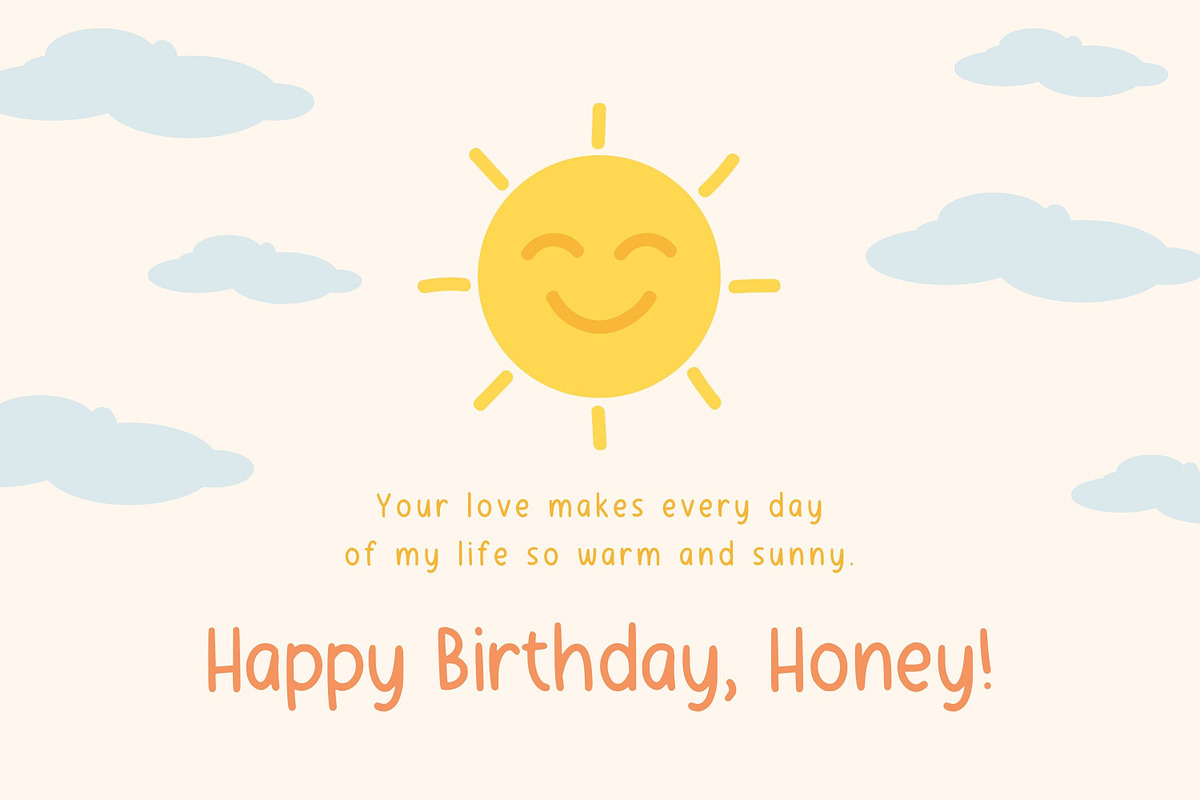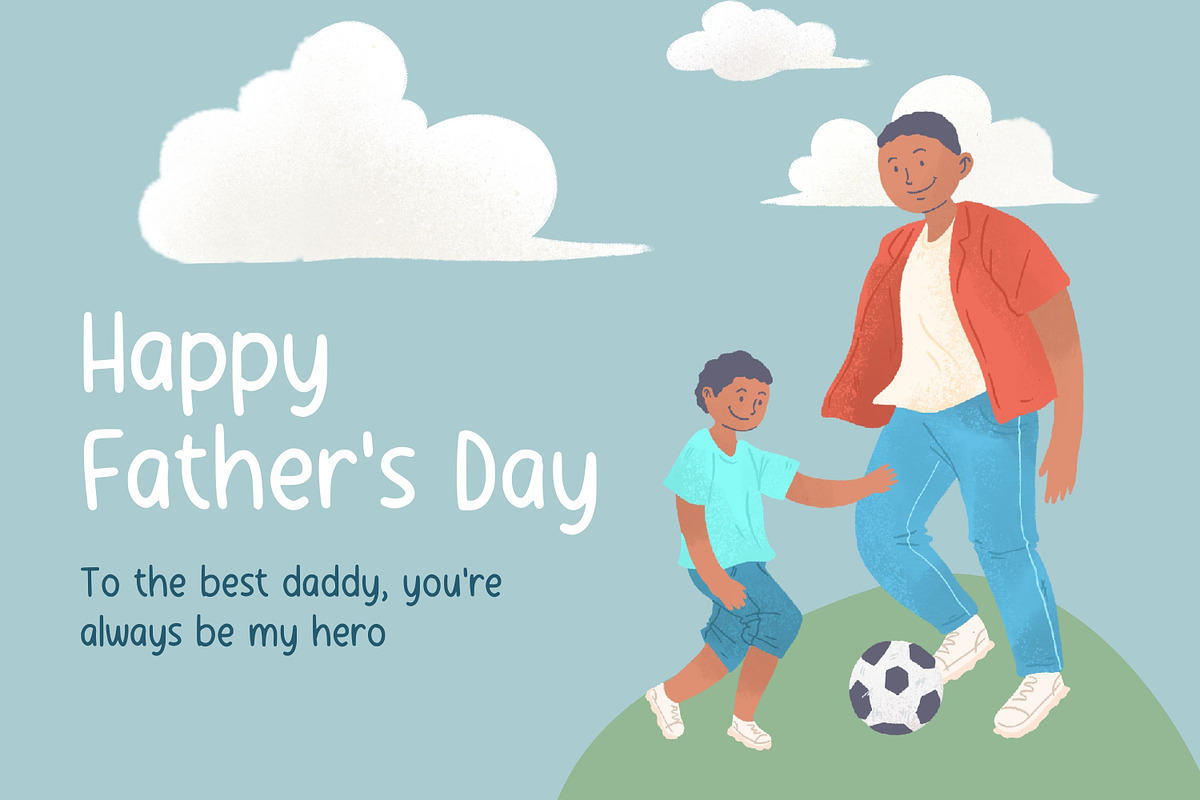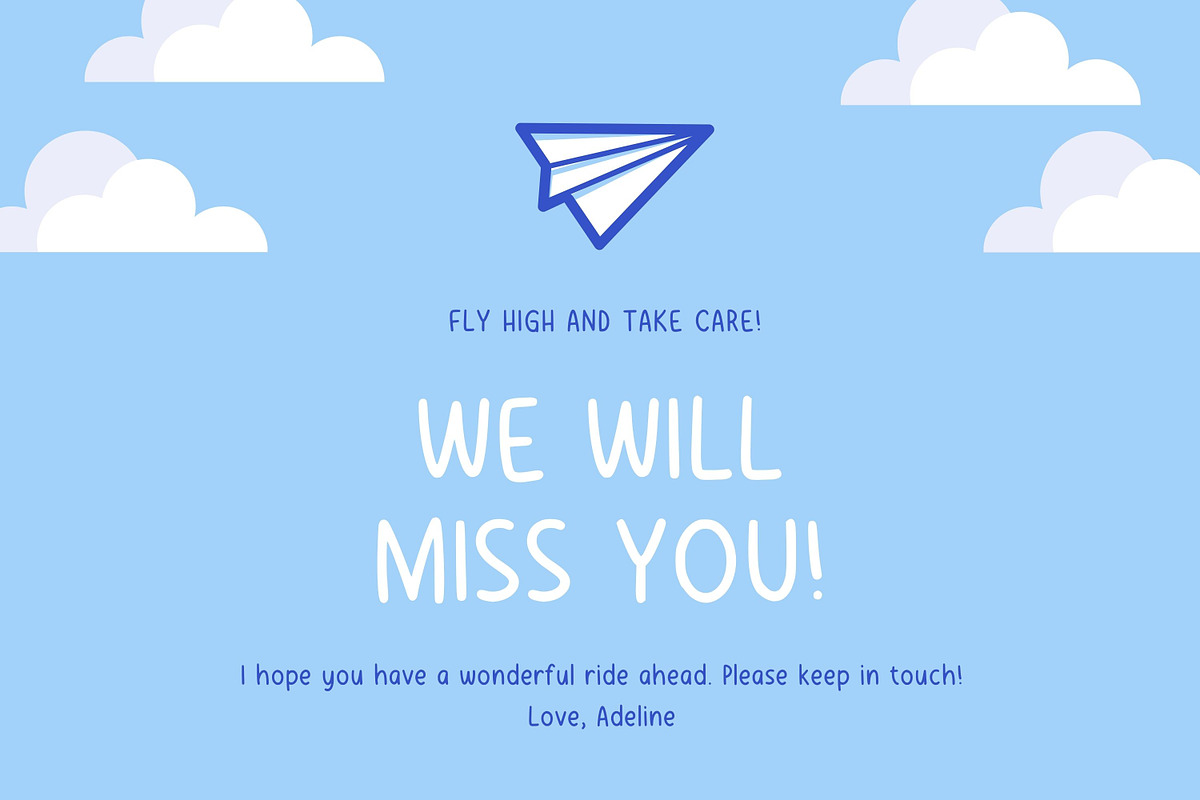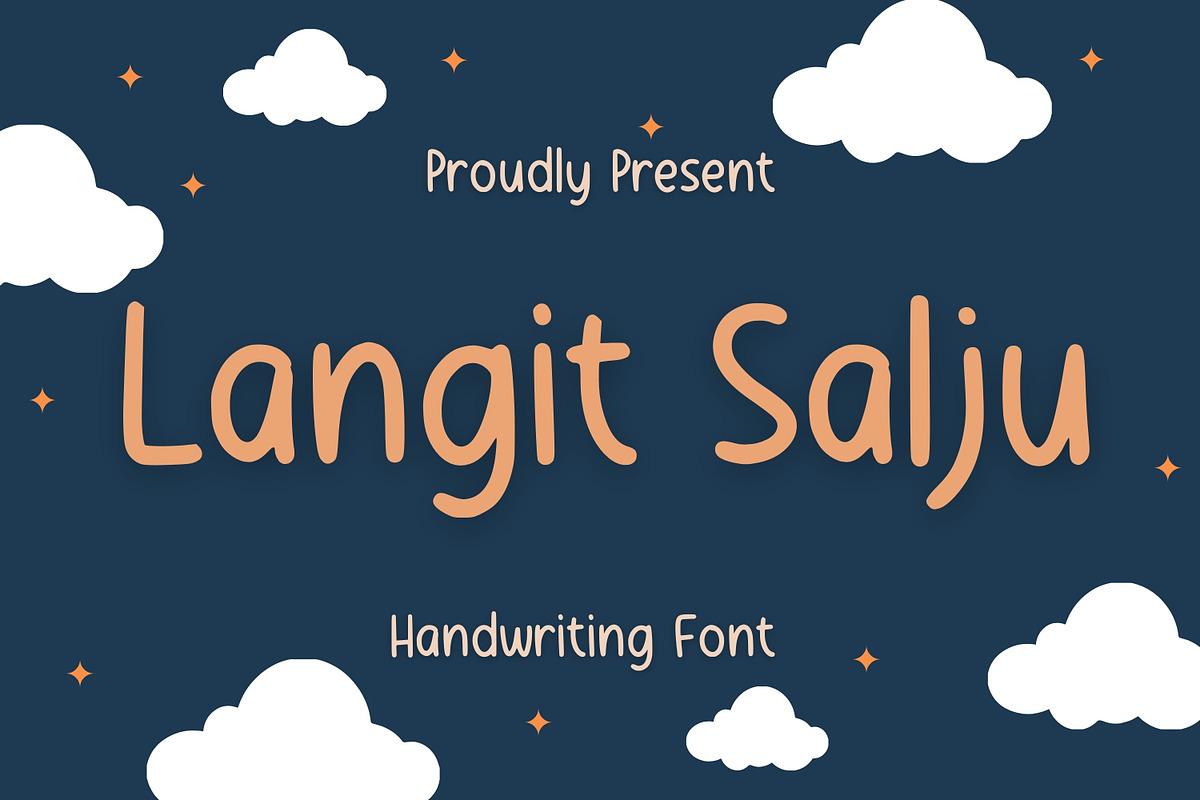
Langit Salju
This casual handwriting font adds a touch of personality and charm to any project. With its organic, flowing lines and unique character, it captures the essence of natural handwriting while remaining legible and easy to read. The font is perfect for adding a natural touch to invitations, posters, social media graphics, and more. Its versatility makes it a great choice for a wide range of creative projects. Whether you're looking to add a fun and casual vibe or simply want to create something that stands out, this handwriting font is the perfect choice.